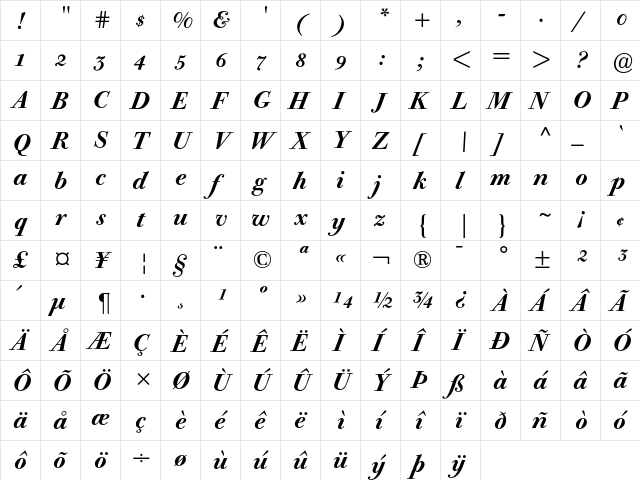
Bodoni Old Face BE Medium Italic Oldstyle Figures
| Style | Medium Italic Oldstyle Figures |
Design Context for Bodoni Old Face BE Typeface
Bodoni Old Face BE brings classic typographic sensibility to the table — its serifs and measured letterforms reflect centuries of print heritage. The slanted form adds forward momentum and visual energy.
Pro Tip: Use Bodoni Old Face BE for editorial body copy and considered headline work. Pair with a neutral sans for UI elements or captions to create a classic hierarchy.